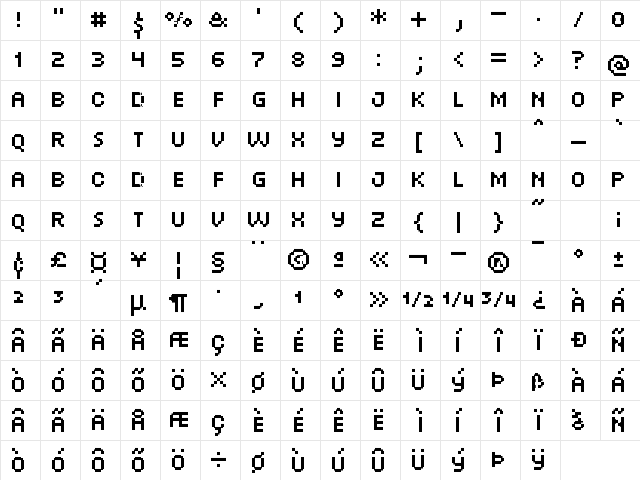
UF Orbital Menu Regular
Foundry: Ultrafonts
Designer: Miguel Hern￿ez
Design Context for UF Orbital Menu
UF Orbital Menu is a composed and adaptable typeface that performs quietly and consistently across a wide range of design contexts.